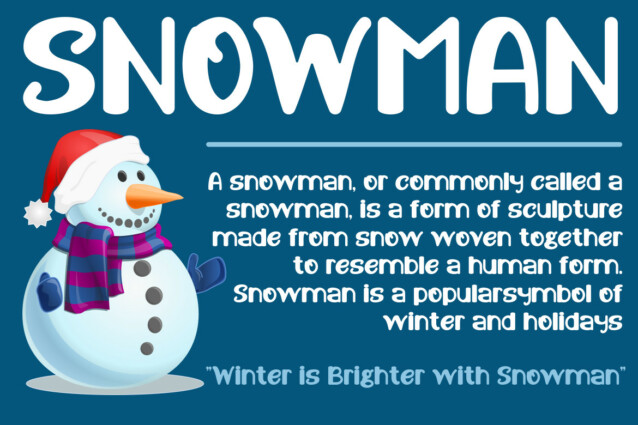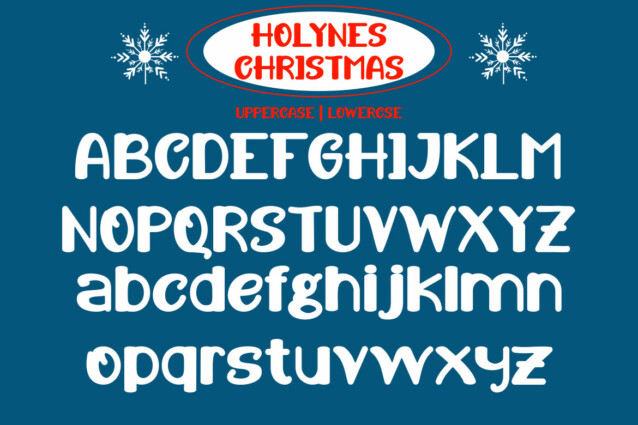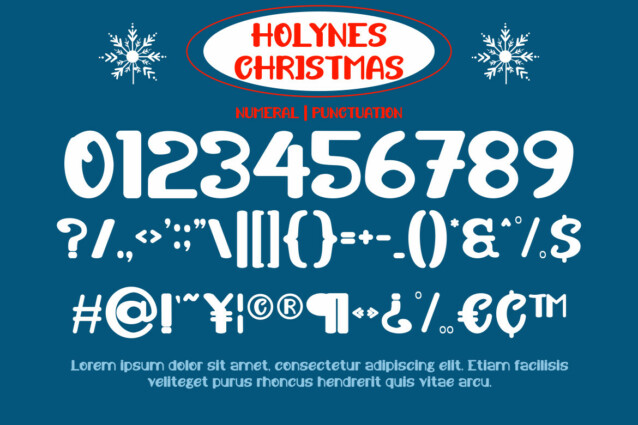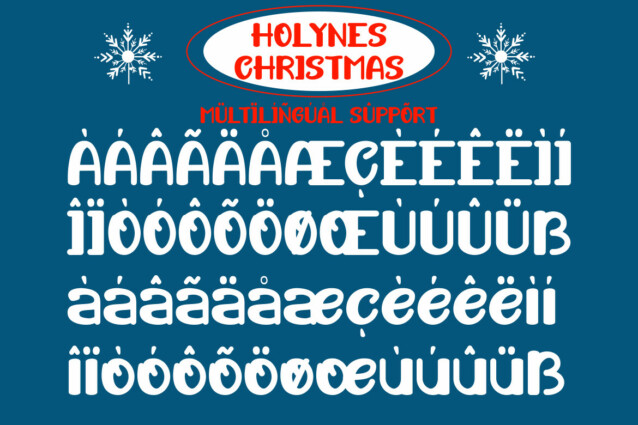
Holiness Christmas Display Font
Holiness Christmas Display Font is specifically designed to create a Christmas atmosphere and mood. It is often used in graphic design, greeting cards, posters, and various other visual elements related to the celebration of Christmas.